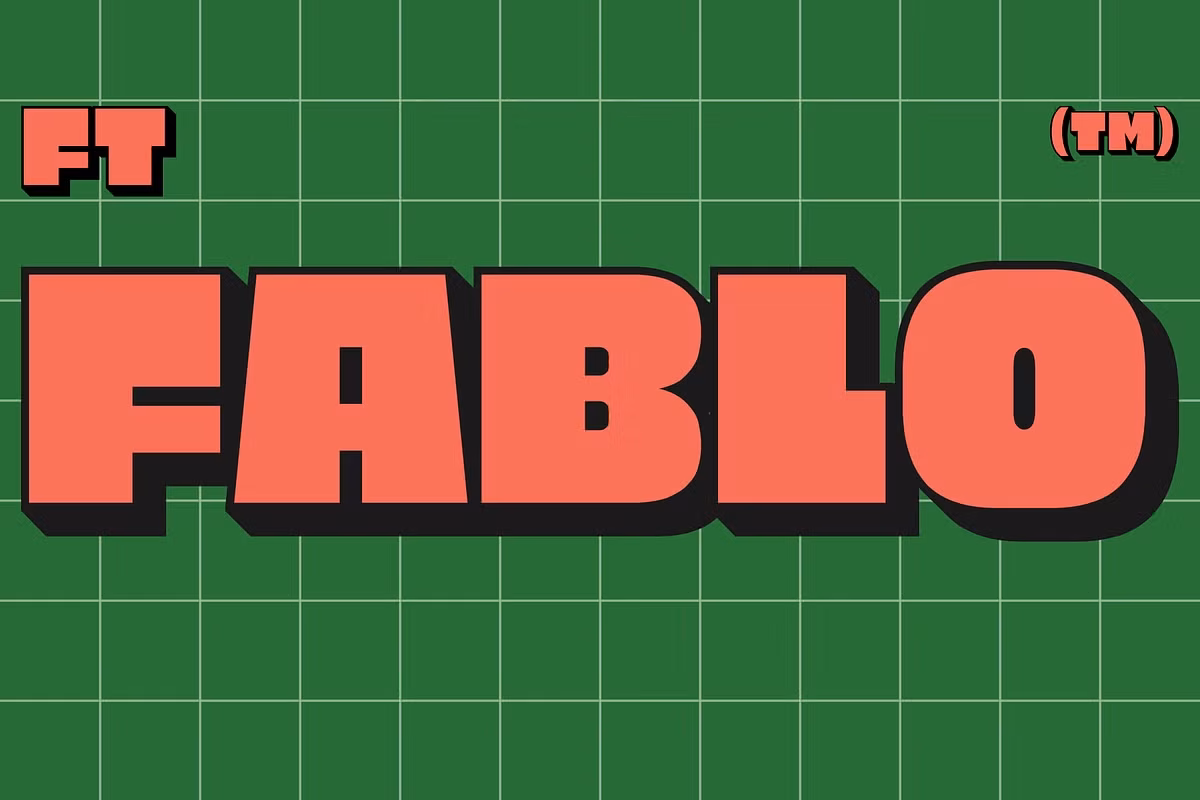
FT FABLO | Shadow Font Free Download is a bold and eye-catching display typeface that features built-in shadow effects for instant visual impact. Ideal for posters, headlines, retro branding, and creative design projects, this font brings a sense of depth and dynamic energy to any layout.
With its striking style and vintage charm, FT FABLO | Shadow Font Free Download makes it easy to create standout graphics that grab attention. Whether you're designing for events, merchandise, or eye-popping social media content, this font gives you a ready-made 3D effect without extra editing. Download it now to test how it fits into your creative workflow before opting for the full commercial license. It’s bold, fun, and unforgettable.